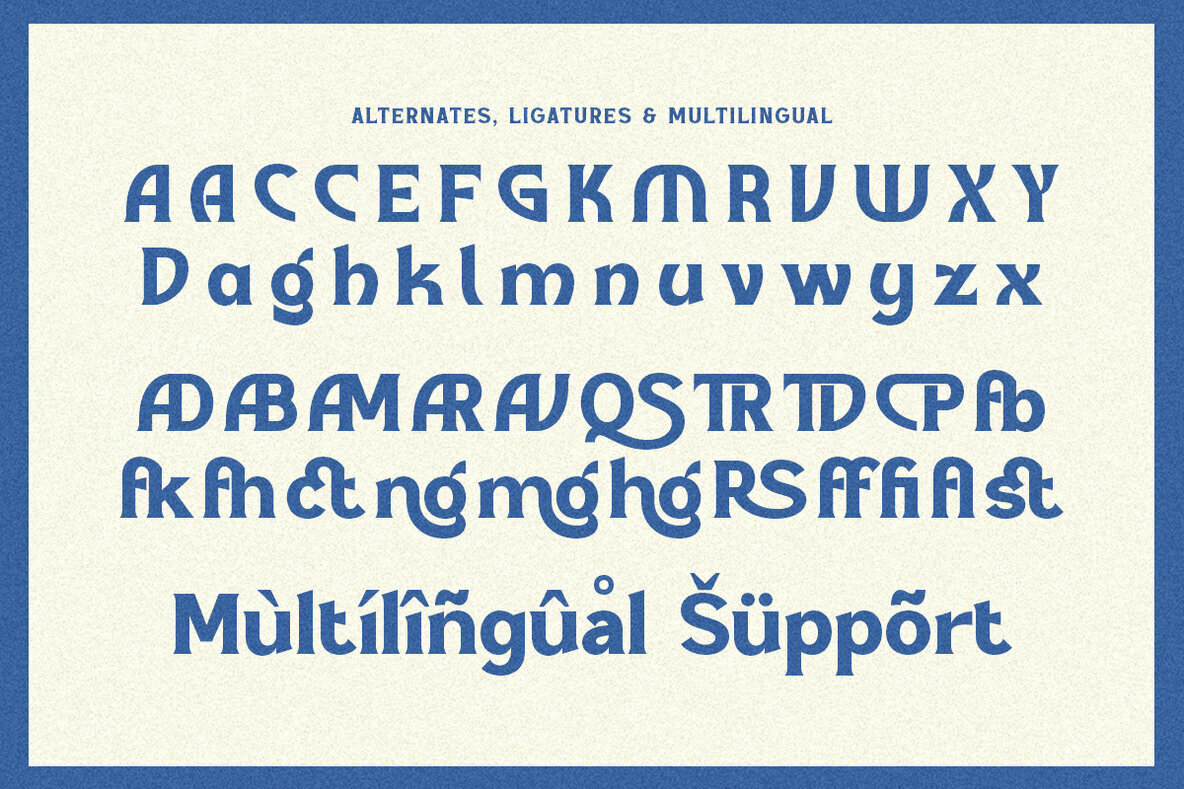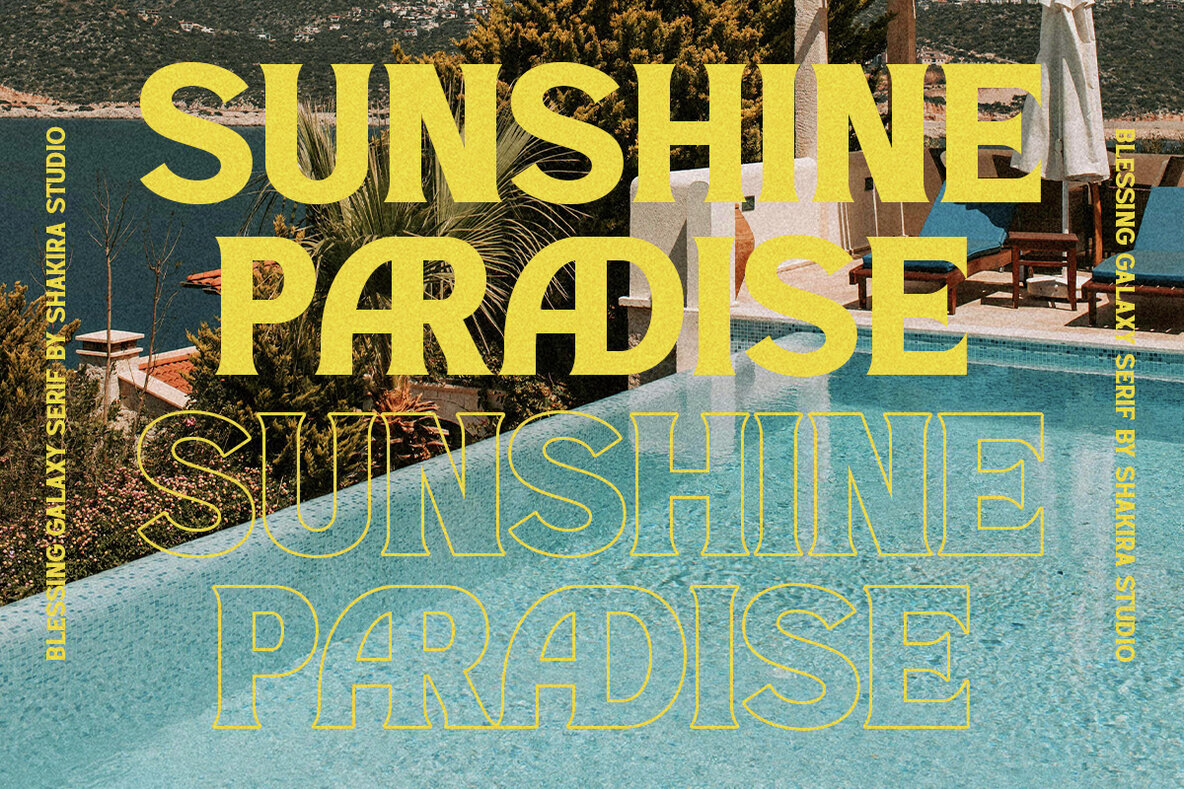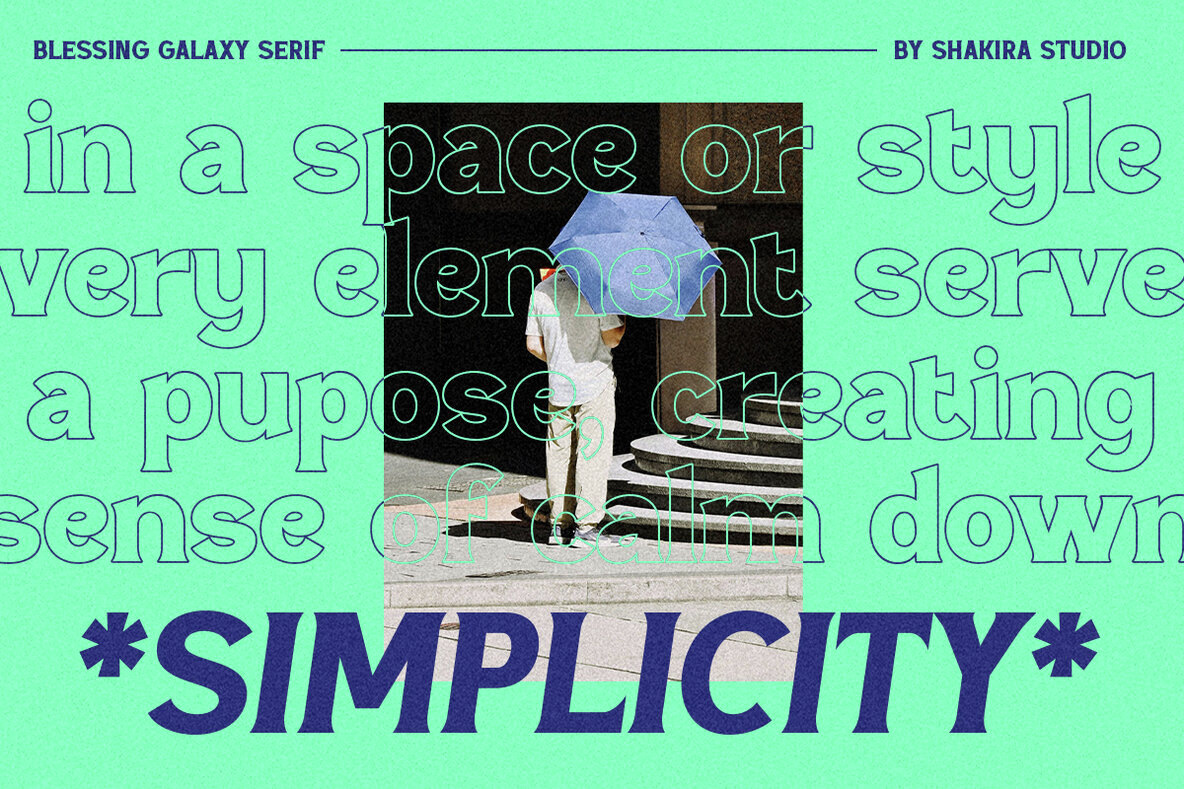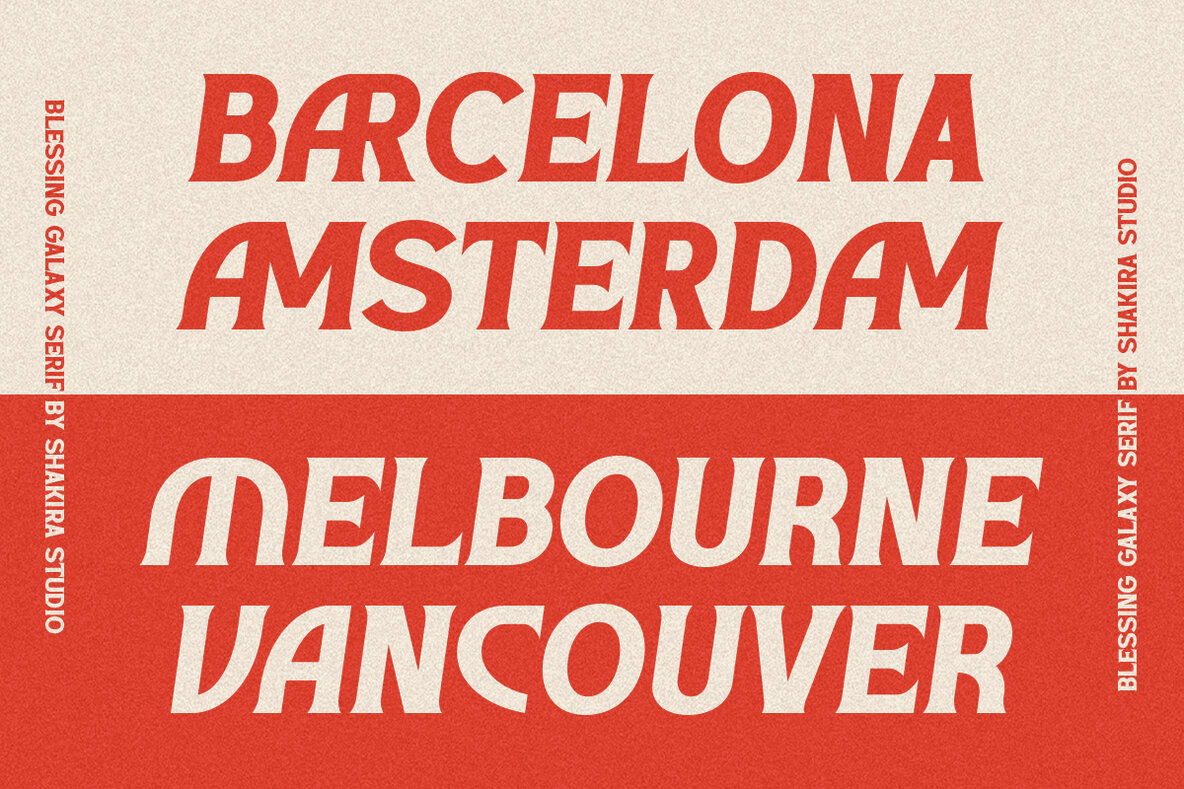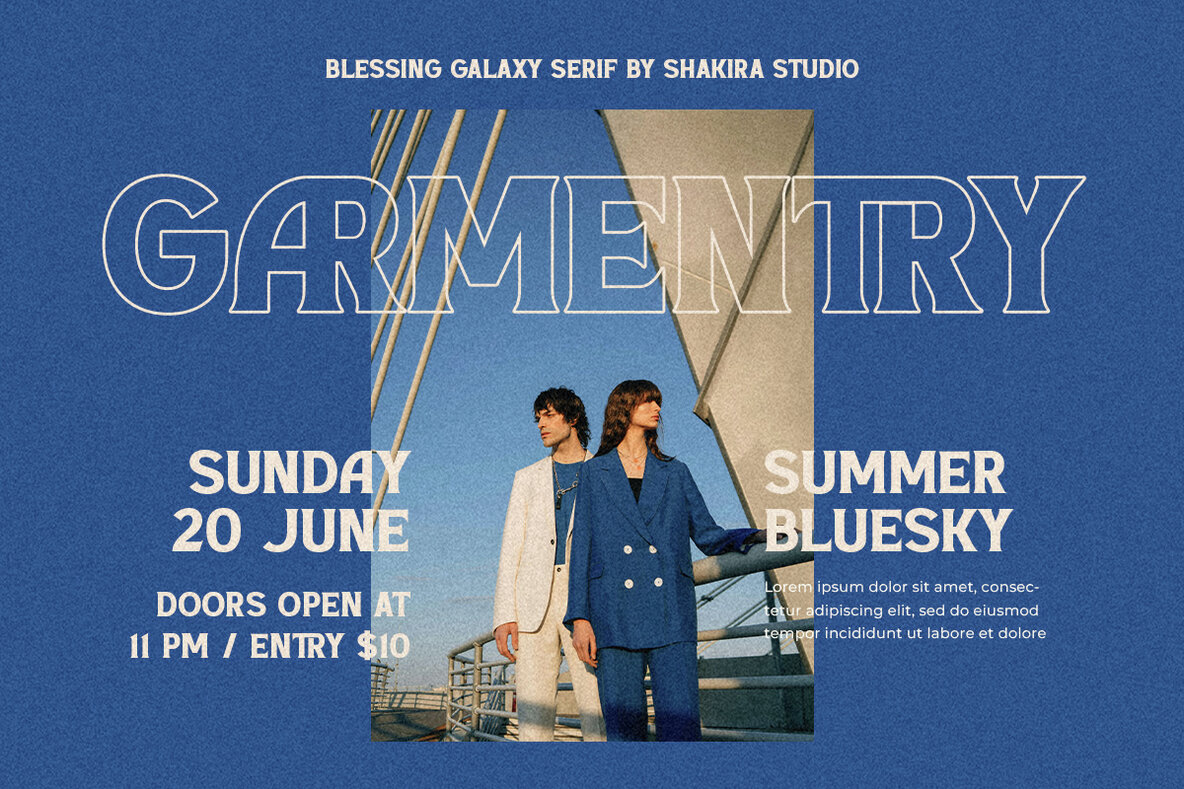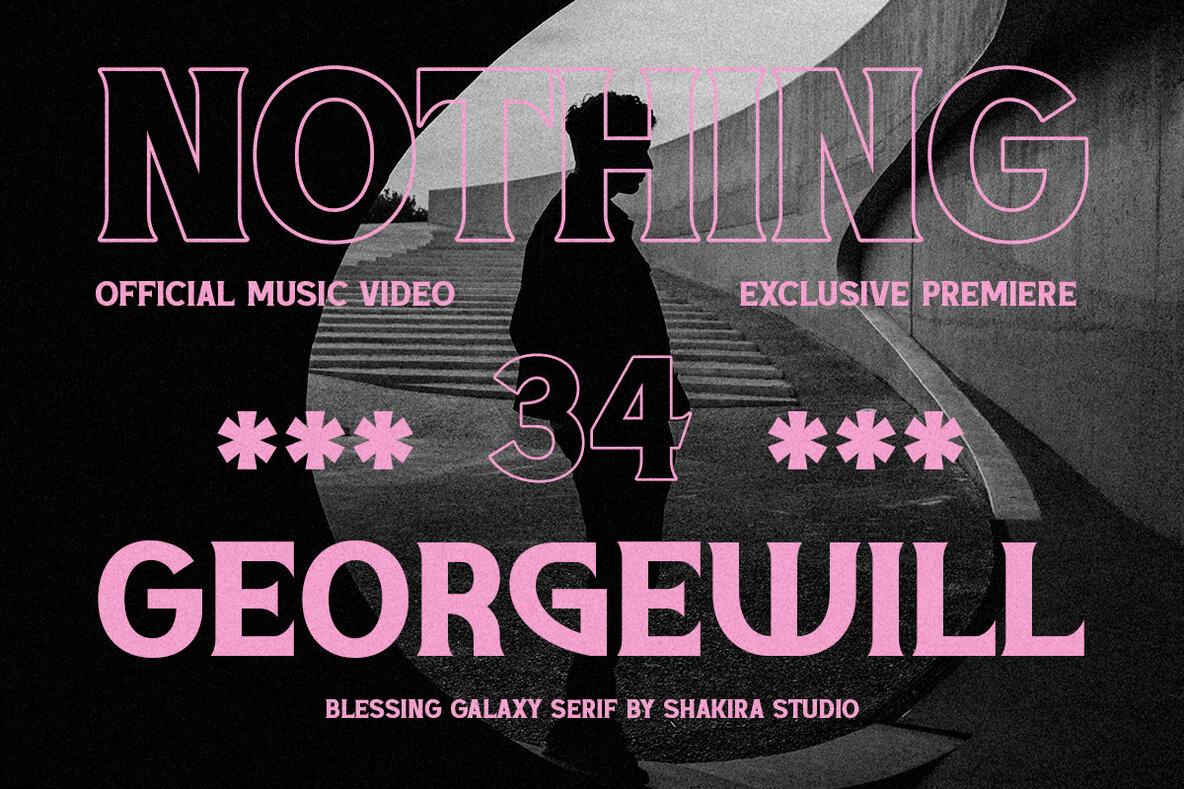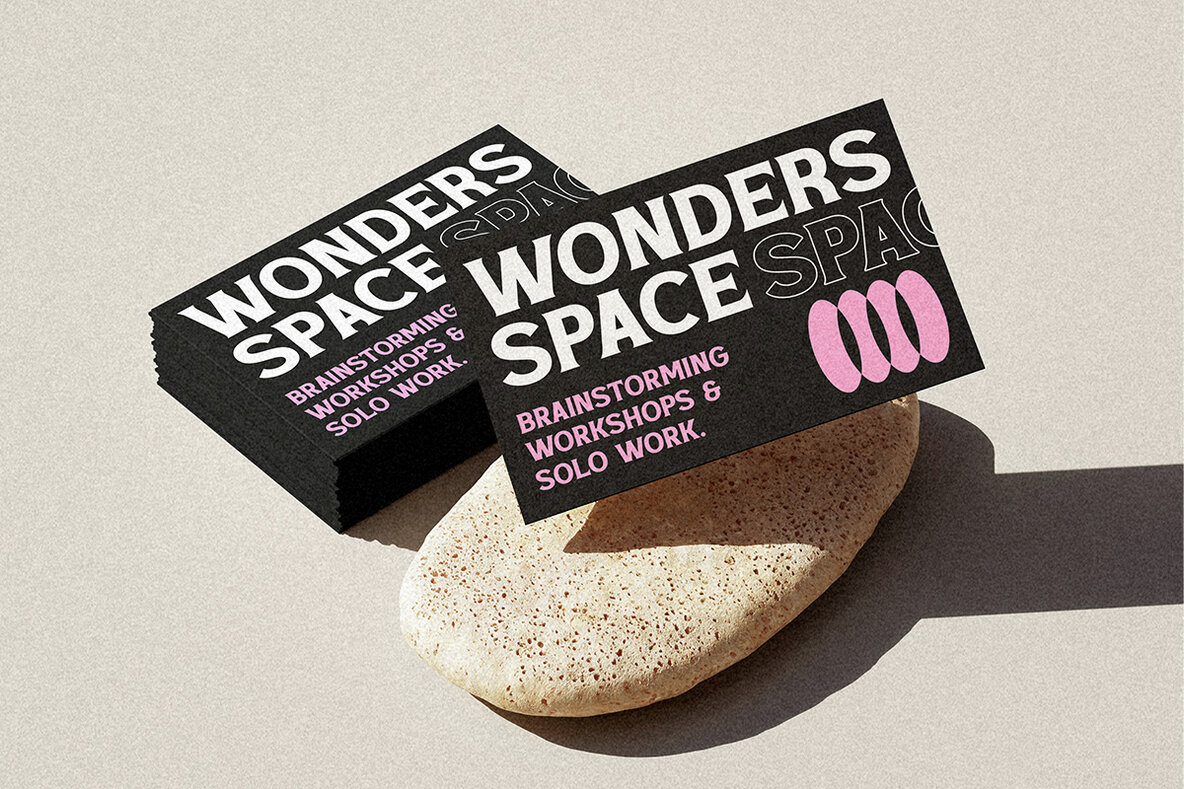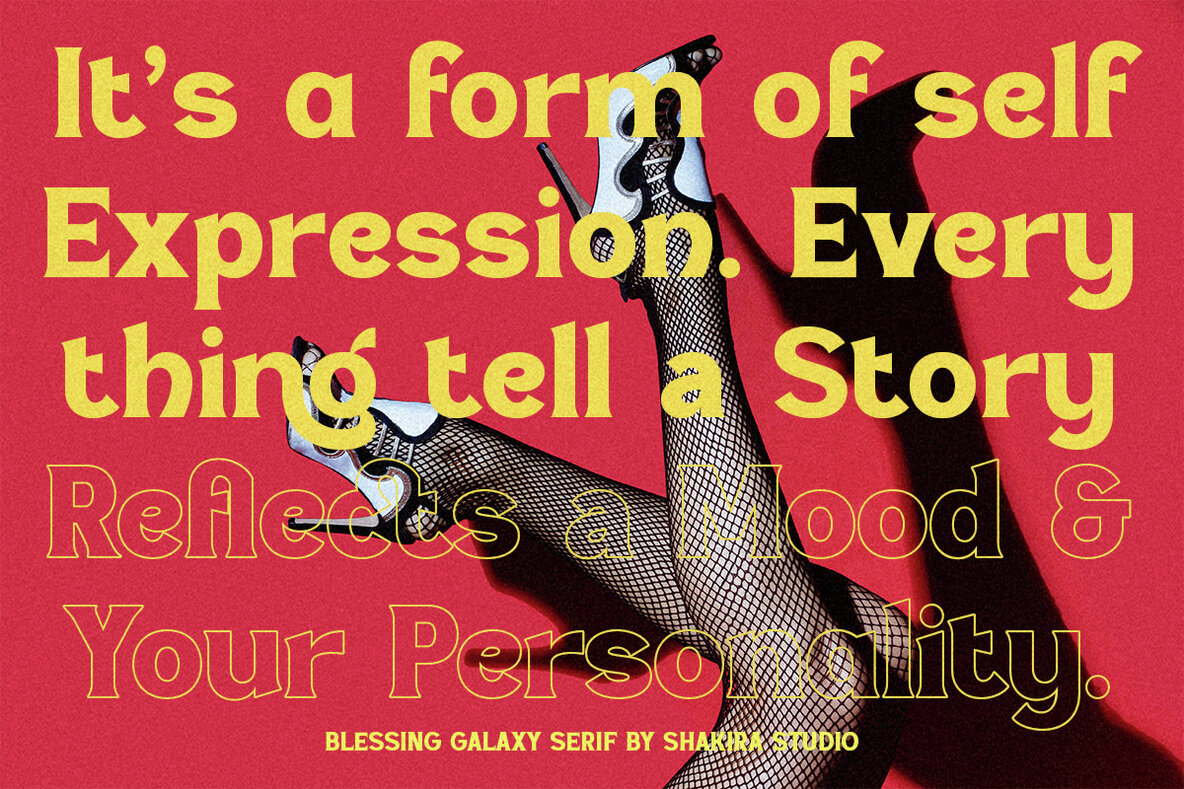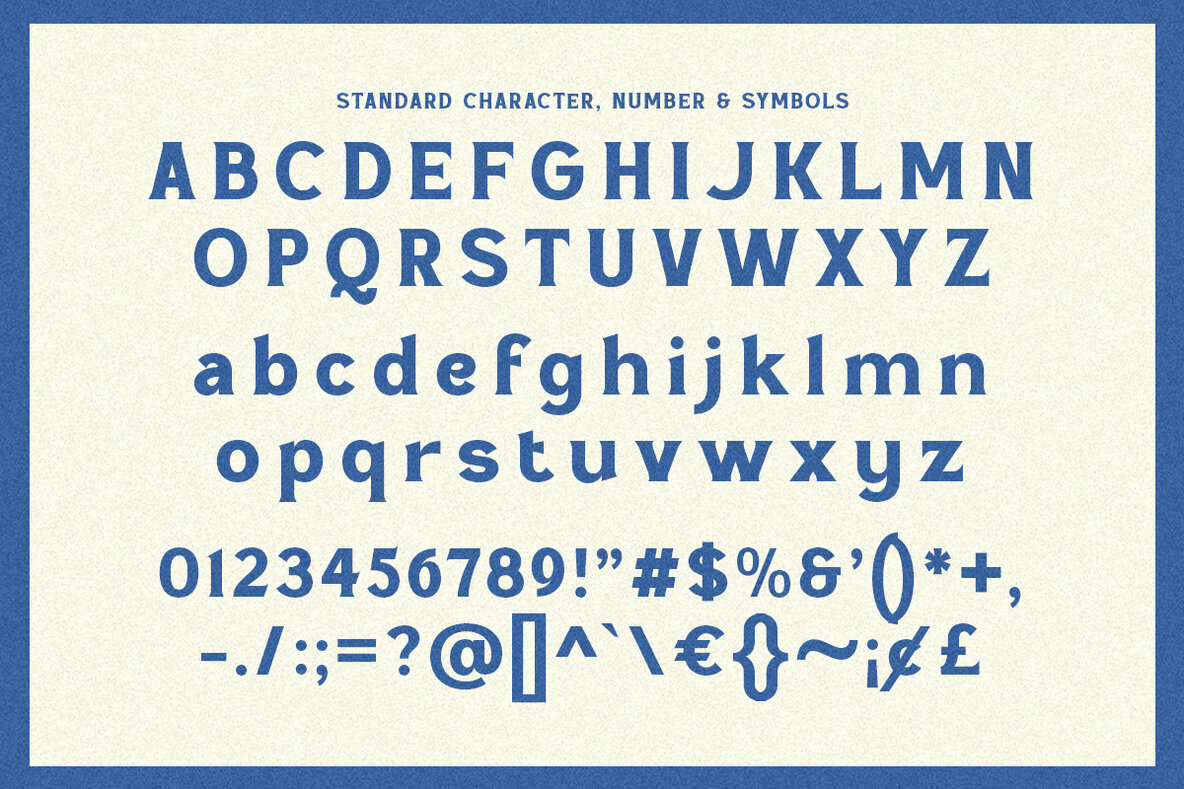
Blessing Galaxy Font
Blessing Galaxy Outline Regular
Blessing Galaxy Regular
Blessing Galaxy Italic
Introducing a bold and vibrant modern serif display font, this typeface combines elegance with innovative design. Featuring Regular, Italic, and Outline variations, each style is carefully crafted to convey distinct visual narratives. With a wide array of alternates and ligatures, this font guarantees that every design has a unique touch. Designed for adaptation across a spectrum of creative contexts, the typeface is both multilingual and multicultural, making it perfect for eye-catching headlines, refined logos, or captivating editorial layouts.